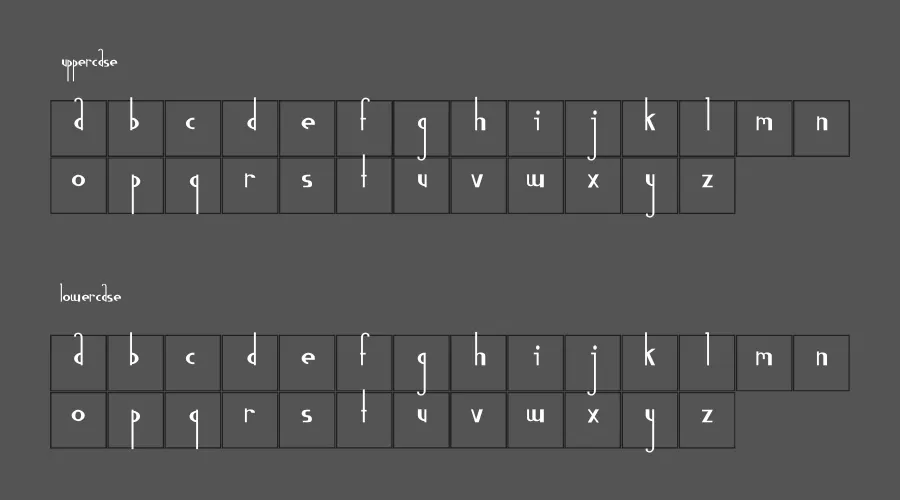
Gauss Jordan Font
About Gauss Jordan Font
Tom Murphy 7 designed Gauss Jordan Font it is a fancy font. This typeface comes in a variety of styles. It includes capital and lowercase letters, numbers, punctuation, symbols, commas, and a few unique alphabetic characters. The free version is accessible.
You can use it for almost any type of project because of its elegant typeface design. The fancy font works best when developing things like websites, assignments, prints, clothes, and many other things.
It goes well with the blastrick typeface. When these two fonts are combined, your project’s appearance will change, and innovative ideas will appear.
Designer Tom Murphy 7
Style Fancy
What is Gauss Jordan font?
It is a fancy font this typeface comes in a variety of styles. It includes capital and lowercase letters, numbers, punctuation, symbols, commas, and a few unique alphabetic characters.
Who is the creator of the Gauss Jordan font?
Tom Murphy 7 designed Gauss Jordan Typeface the text style is exceptionally appealing. The shapes of the characters are simple but well-balanced, and the impact of the design is satisfying to the eye.